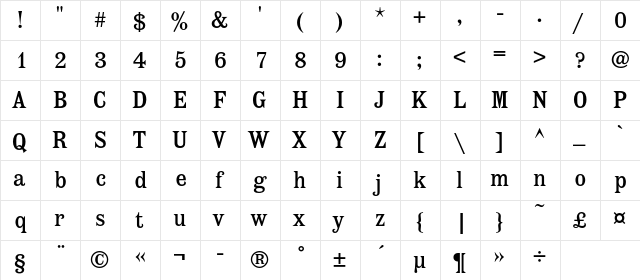
EtienneC Regular
Design Context for EtienneC Typeface
EtienneC takes a measured approach to typography — its balanced proportions and neutral character make it a reliable workhorse for both digital and print work.
Pro Tip: Pair EtienneC with a font of contrasting weight or personality to build a more expressive typographic hierarchy.